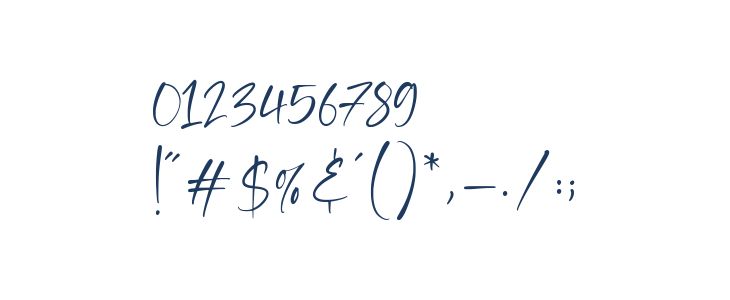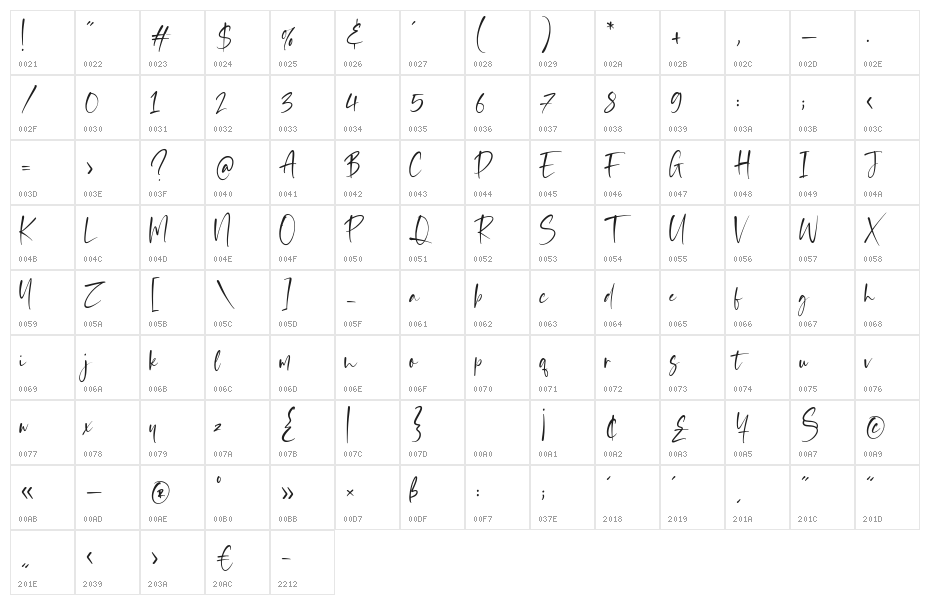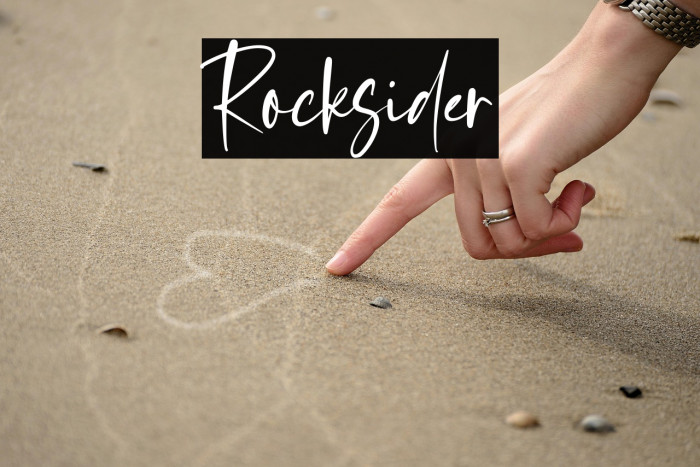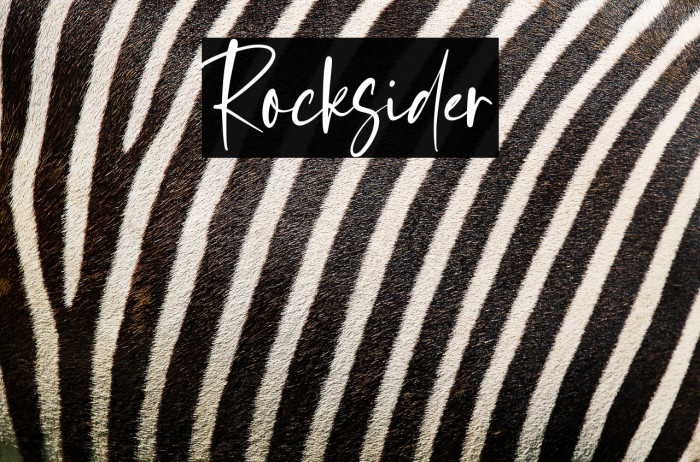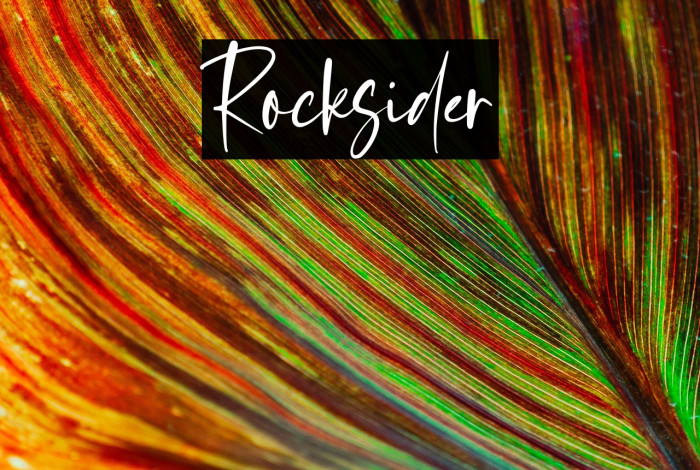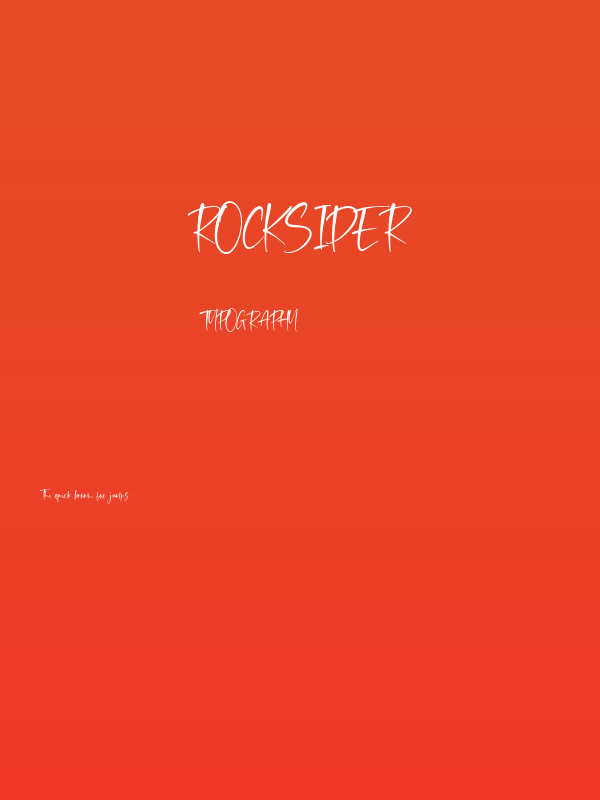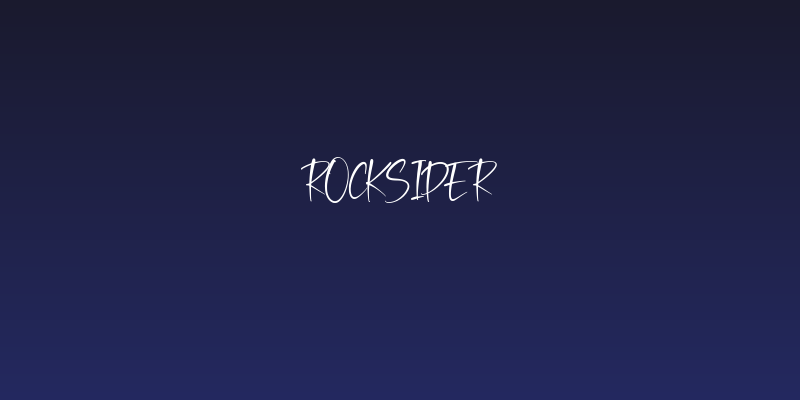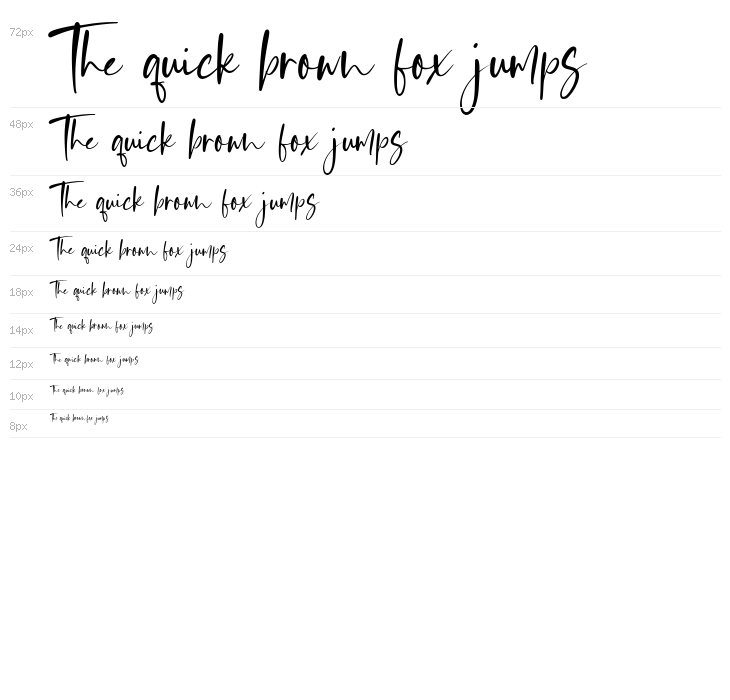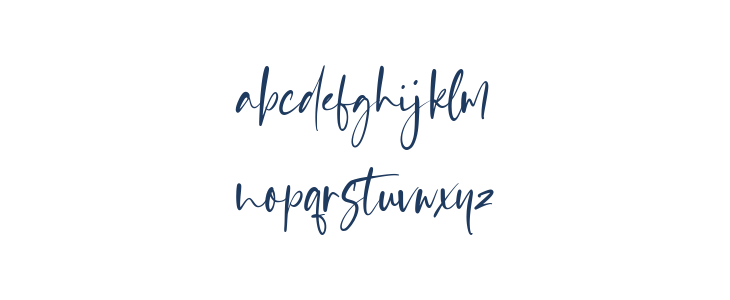
Rocksider Font
Rocksider Description
This font exudes a lively and energetic vibe with its handwritten style, characterized by fluid, sweeping strokes and a playful, informal appearance. The letters are slightly slanted, giving a sense of movement and dynamism. The uppercase letters are bold and prominent, while the lowercase letters maintain a consistent flow, enhancing readability. The numbers and special characters follow the same energetic style, making them suitable for creative and expressive designs. The overall design is modern and artistic, perfect for projects that require a personal touch.
| Use Case | Logos, Headlines, Creative projects |
| Proposed Projects | Ideal for greeting cards, invitations, branding, social media graphics, and creative posters. |